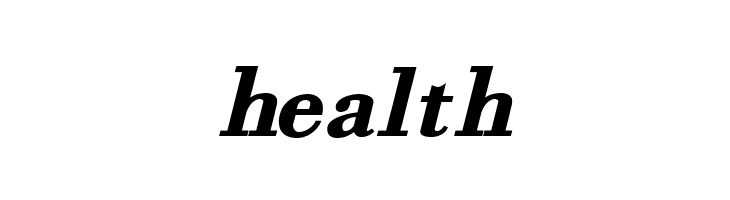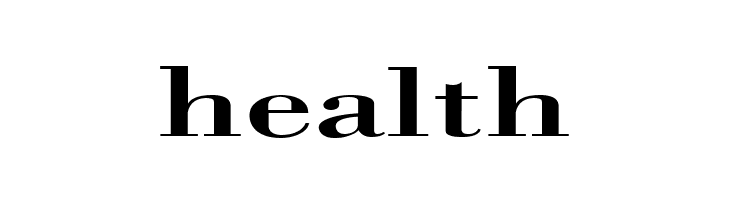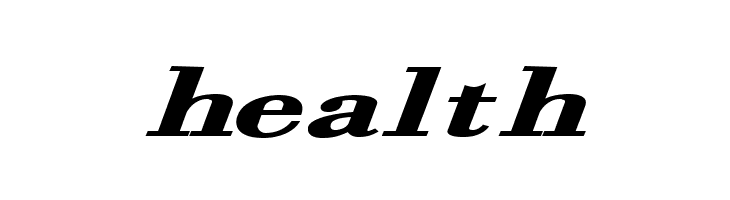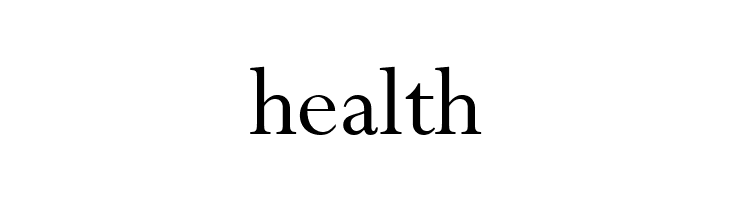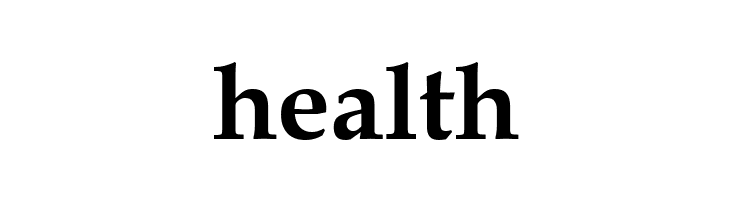
A bold, italicized font with a strong and dynamic presence.
A classic serif font with extended width and modern elegance.
A classic serif font with elegant curves and moderate contrast.
An elegant serif font with a dynamic italic style.
A bold, italic, and extended font with a dynamic and elegant style.
A bold, classic serif font with strong, thick strokes and a modern twist.
A classic serif font with elegant, well-balanced strokes.
A bold, italic serif font with a classic and elegant style.
A classic serif font with elegant strokes and refined proportions.
A bold, classic serif font with strong strokes and pronounced serifs.